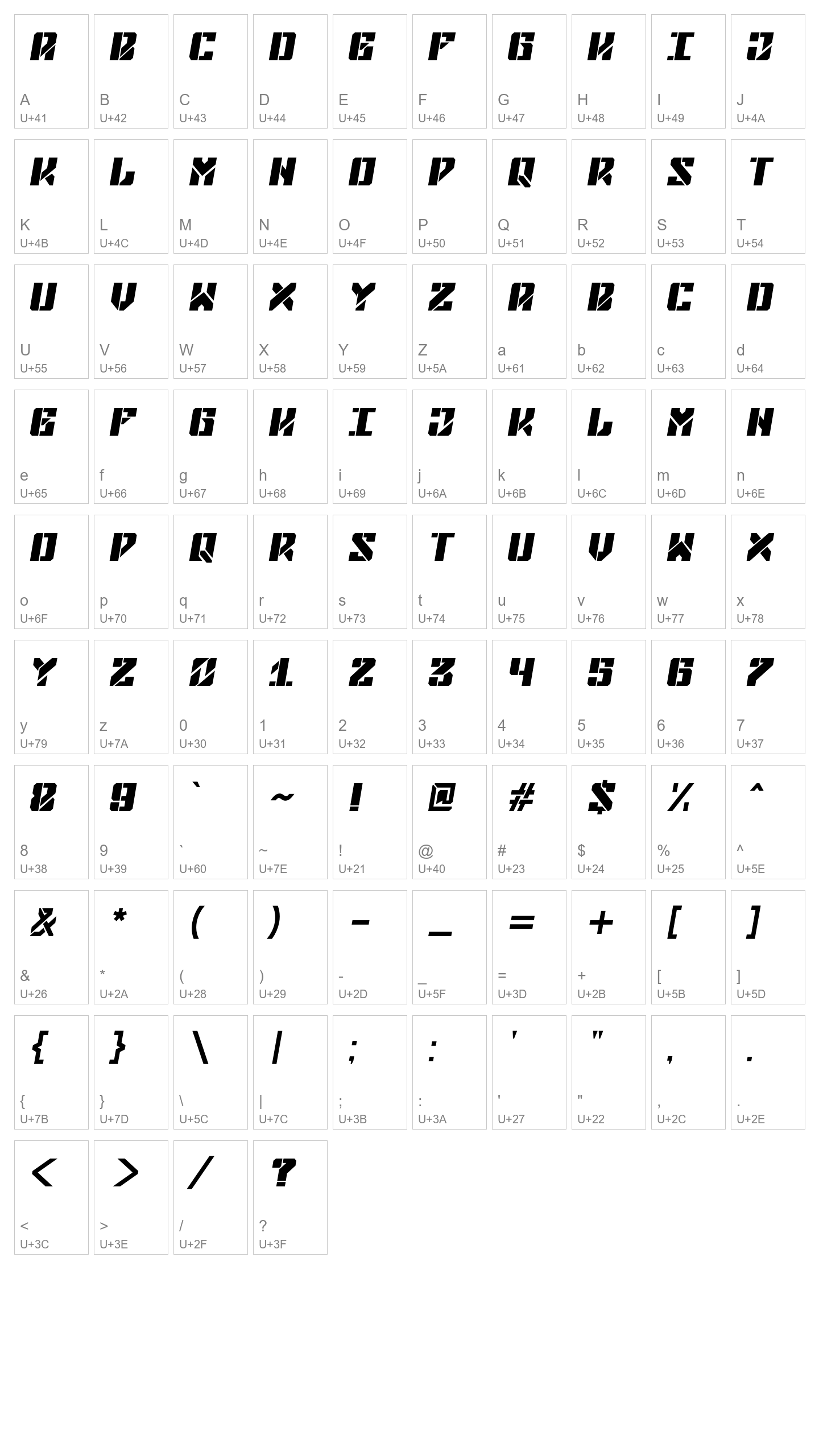
Mechaside
Author: Kris Kurn
Mechaside is a typeface that works well for sci-fi themes, mecha/robots, technology, video games, etc. Made with geometric shapes and stenciled cuts in several places.
If this font seems to be useful, I may update it to include lowercase.